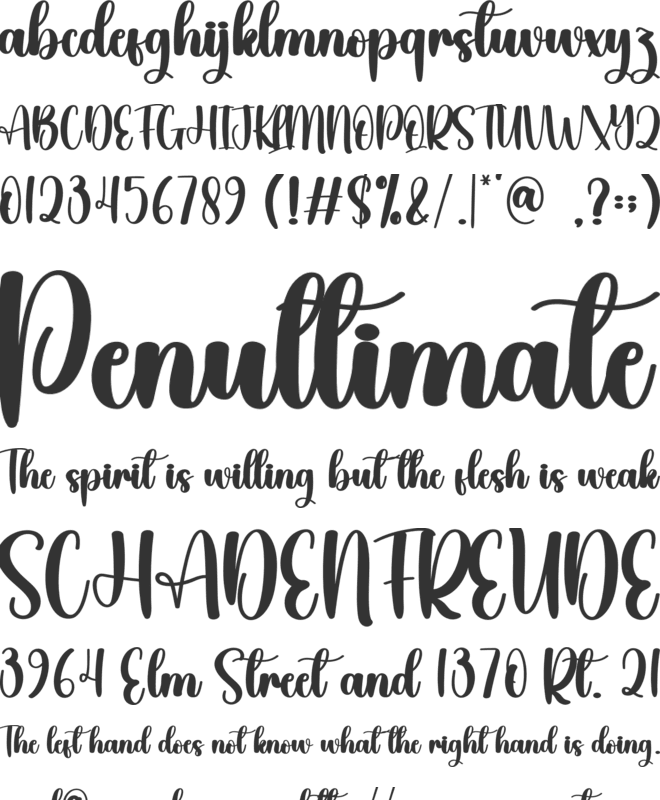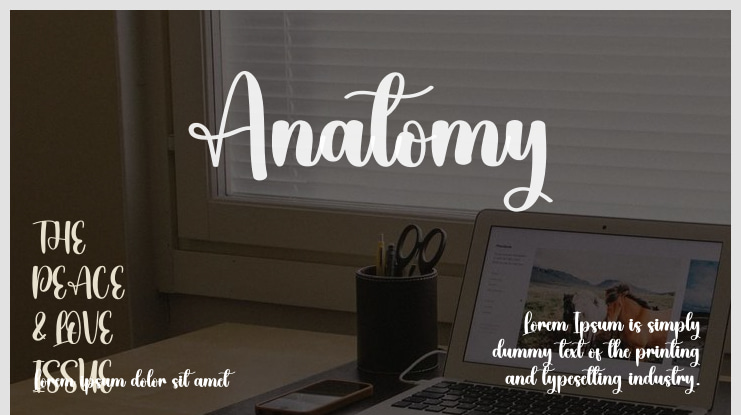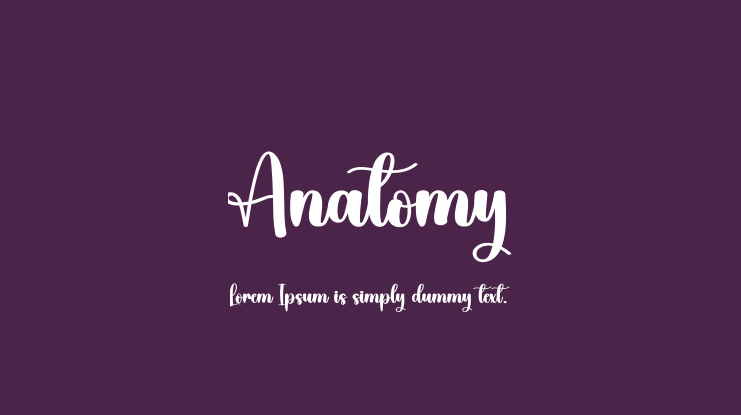
Anatomy Font
The latest styles of lettering are perfect for various applications, such as wall displays, wedding invitations, social media post logos, advertisements, product packaging, product designs, labels, photography watermarks, invitations, stationery, or any project requiring tasteful handwriting.